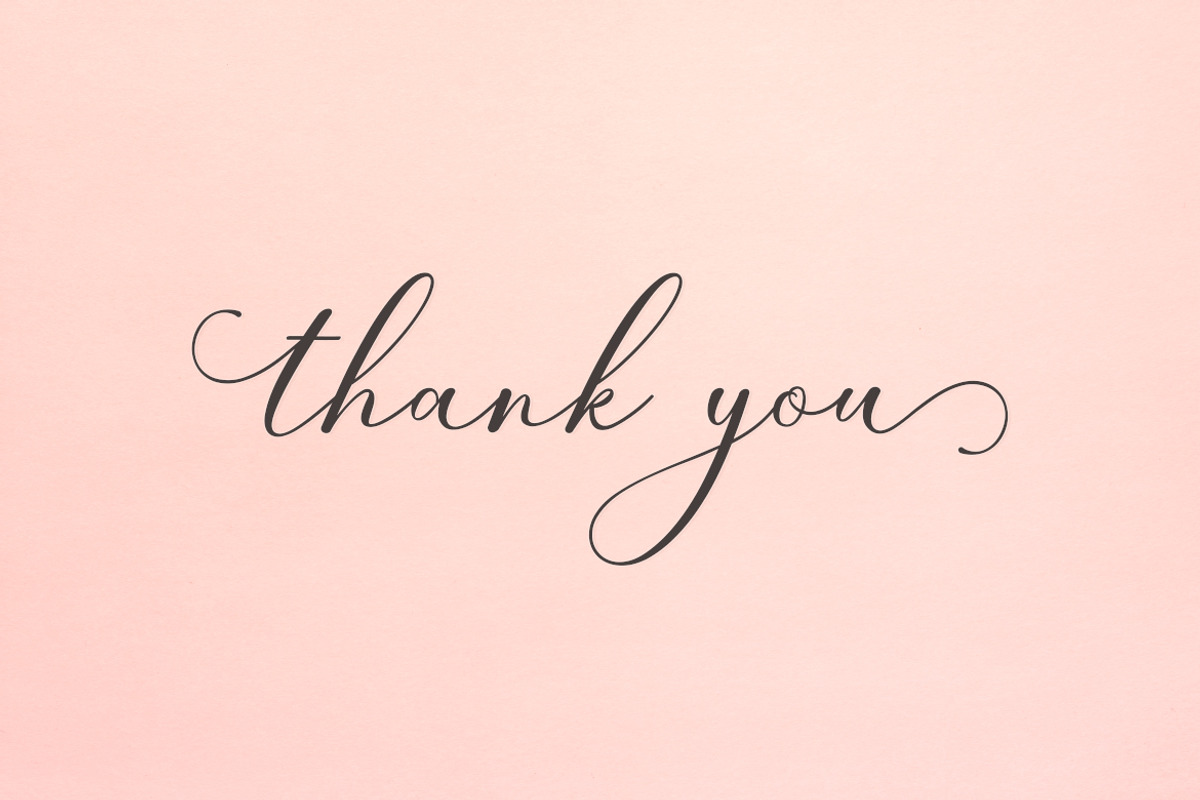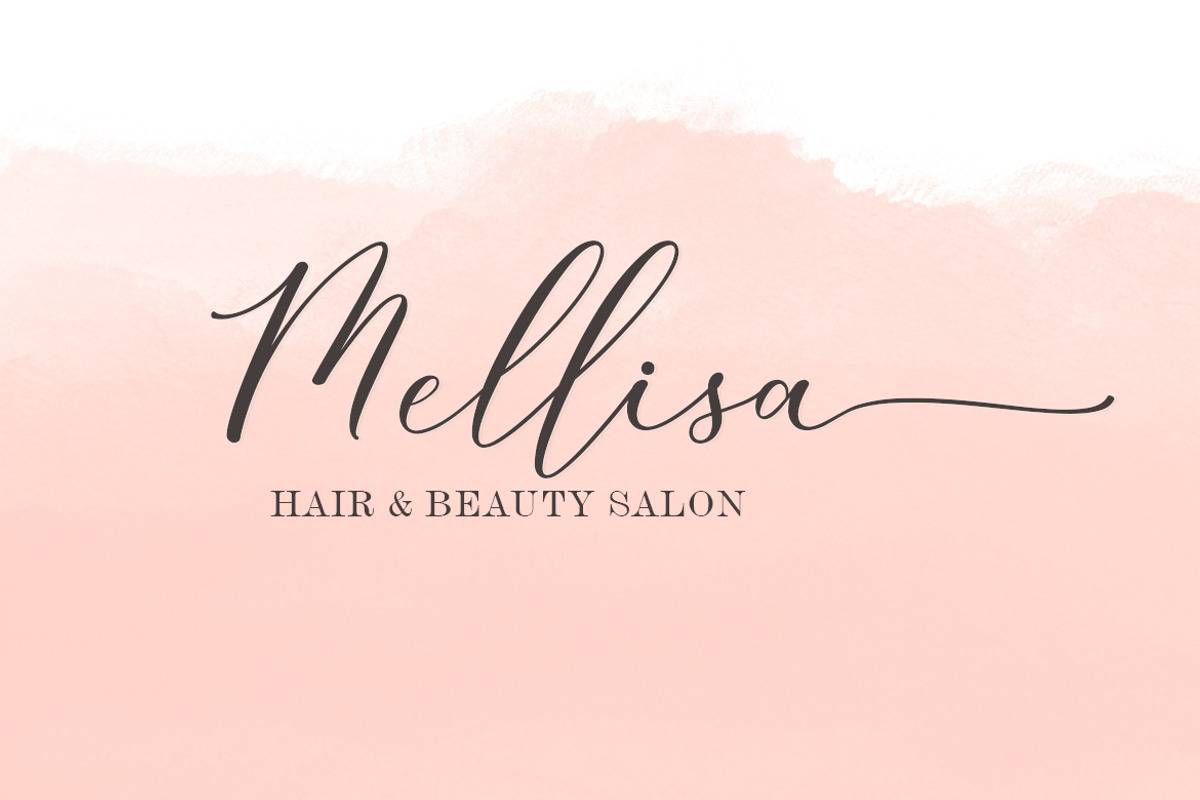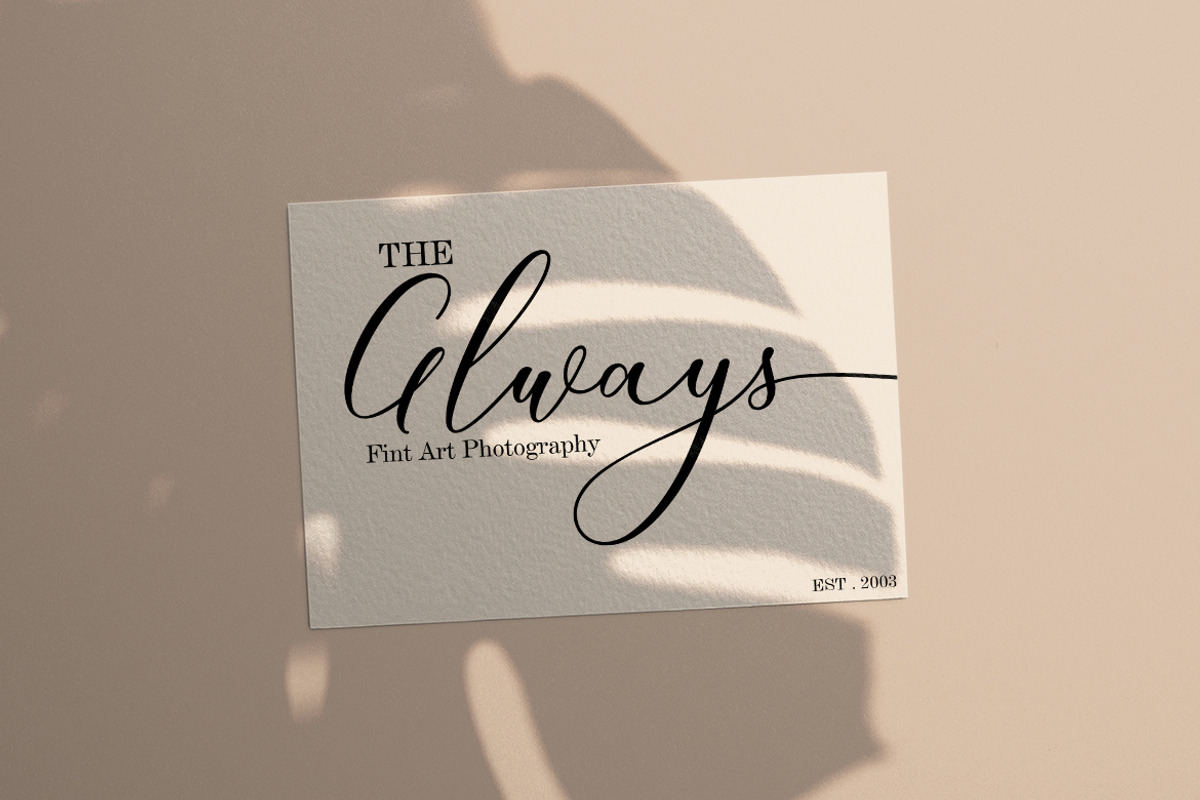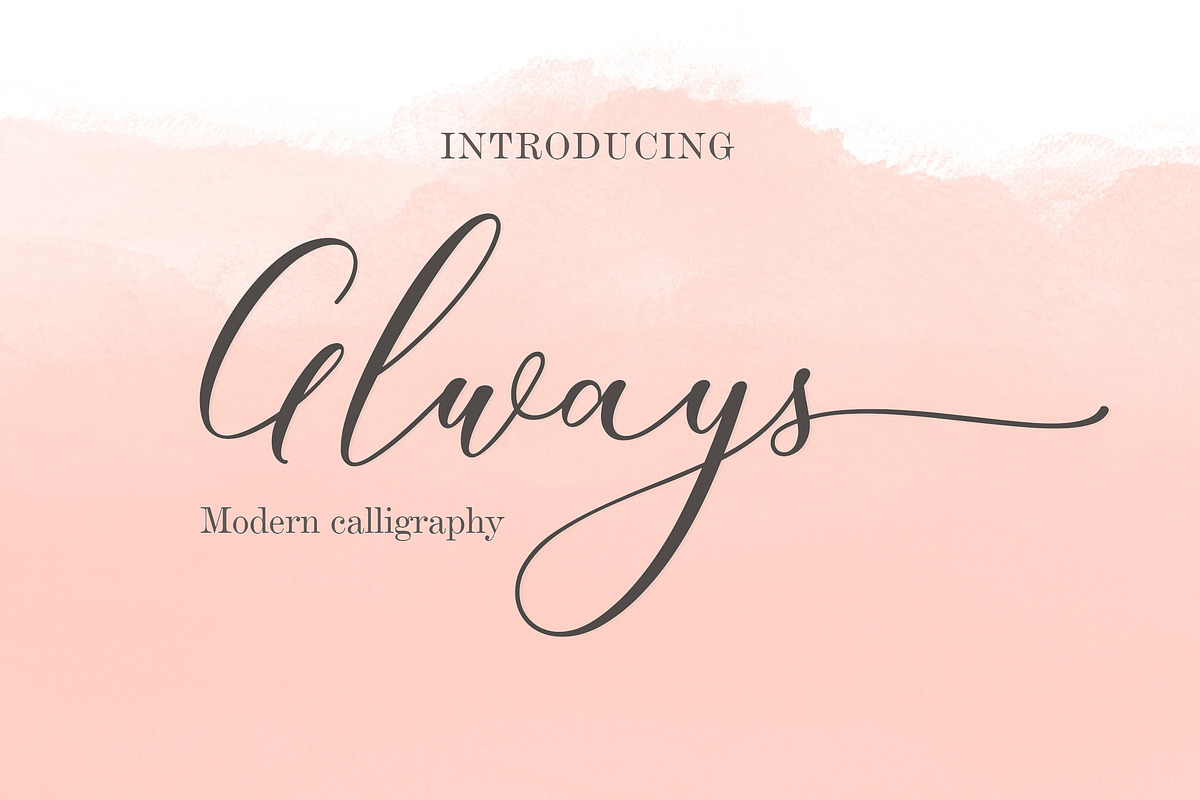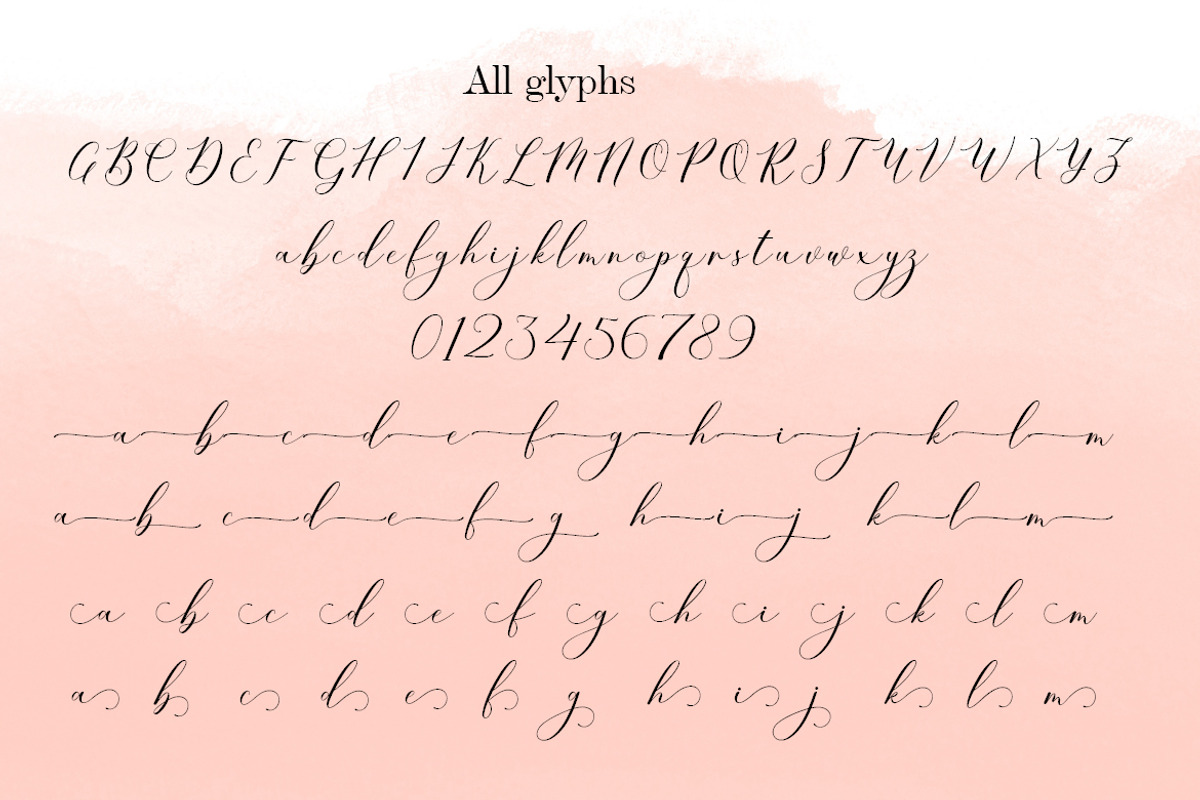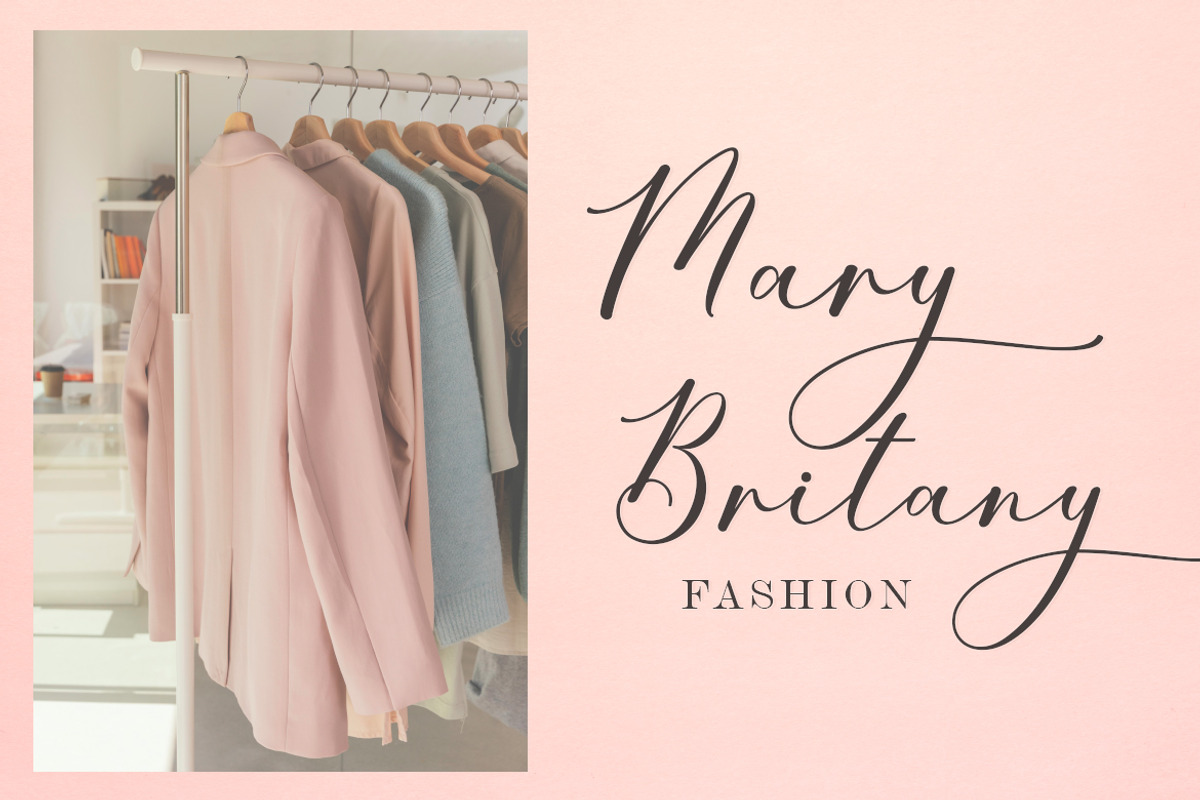
Always Script
Always Script is a delicate and elegant script font with a modern and sophisticated appearance. Its thin letterforms feature fluid strokes and subtle curves, creating a graceful and refined feel. The font is perfect for designs that require a sense of elegance and sophistication, such as wedding invitations, branding, or editorial design. Always Script is a versatile script font that can be used for both body text and headlines, and its delicate yet readable style makes it perfect for a variety of design projects.